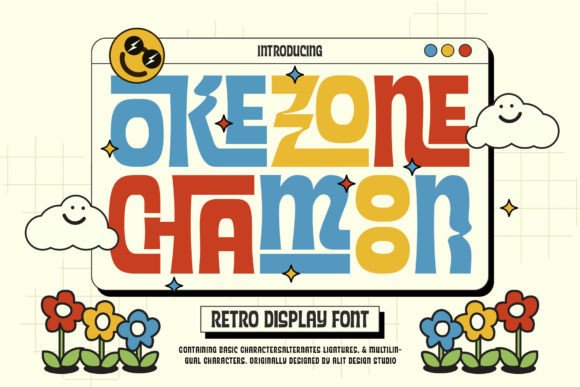
Get ready to immerse yourself in the captivating world of the Okezone Chamoon Groovy Display Serif Font! Created by the talented Alit Design, this font is an absolute game-changer for designers who want to make a bold statement.
Transport yourself back to the vibrant and funky 80s with Okezone Chamoon's groovy and wavy design. It's like stepping into a time machine and infusing your designs with the electrifying spirit of that era. This font is the epitome of coolness, effortlessly adding a touch of nostalgia to your projects.
With its playful and fun-loving attitude, Okezone Chamoon is ideal for crafting eye-catching headlines, posters, and logos with a whimsical twist. Stand out from the crowd and let your creativity shine with this font that exudes a unique and unforgettable vibe.
Not only does Okezone Chamoon excel in digital design, but it also shines in print. Optimized for both mediums, this font ensures that your creations will look stunning on screens and in physical publications. Whether you're designing for the web or print, Okezone Chamoon has got you covered.
Looking to make a lasting impression with your brand? Look no further than Okezone Chamoon. Its distinct style and captivating aesthetics will set your brand apart from the competition. Leave a memorable mark on your audience and showcase your brand's personality with this remarkable font.
The possibilities are truly endless with Okezone Chamoon. From advertising campaigns to retro-themed projects, this font empowers you to unleash your creativity without limitations. Add a touch of nostalgia to your designs and watch as they turn heads, evoke emotions, and leave a lasting impact on anyone who sees them.
Get ready to inject some groove, playfulness, and a dash of modern flair into your designs with Okezone Chamoon Groovy Display Serif Font. Embrace the funky 80s vibe and let your imagination run wild. Unleash the power of this font and watch as your creations captivate and inspire.